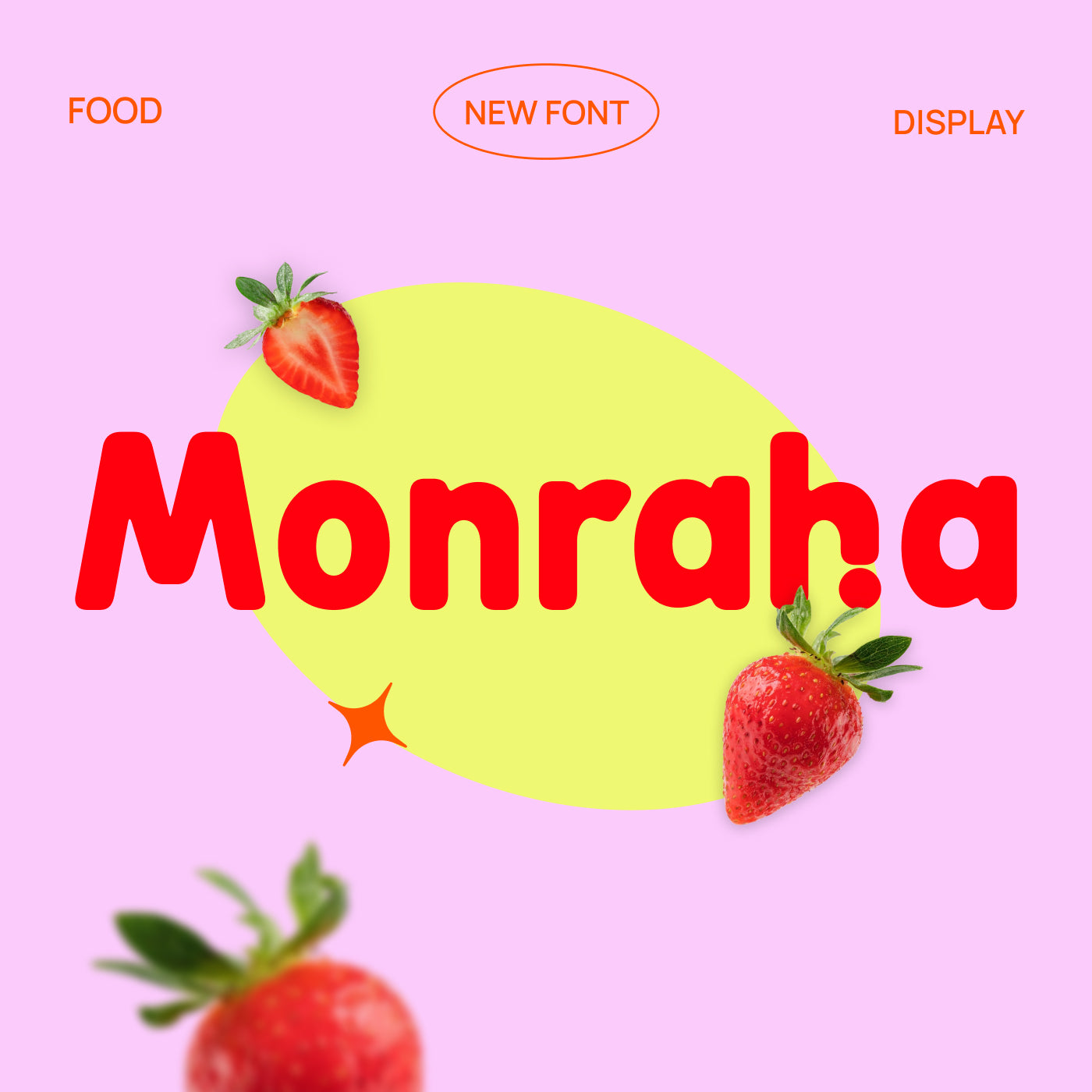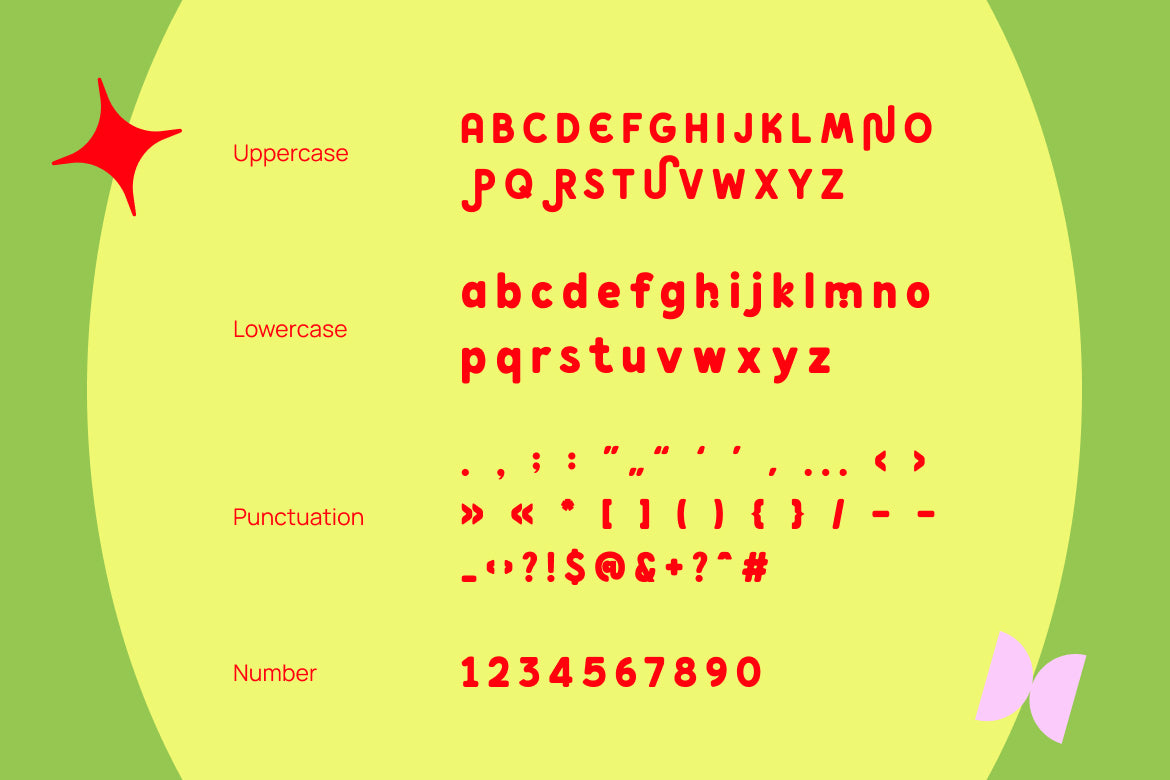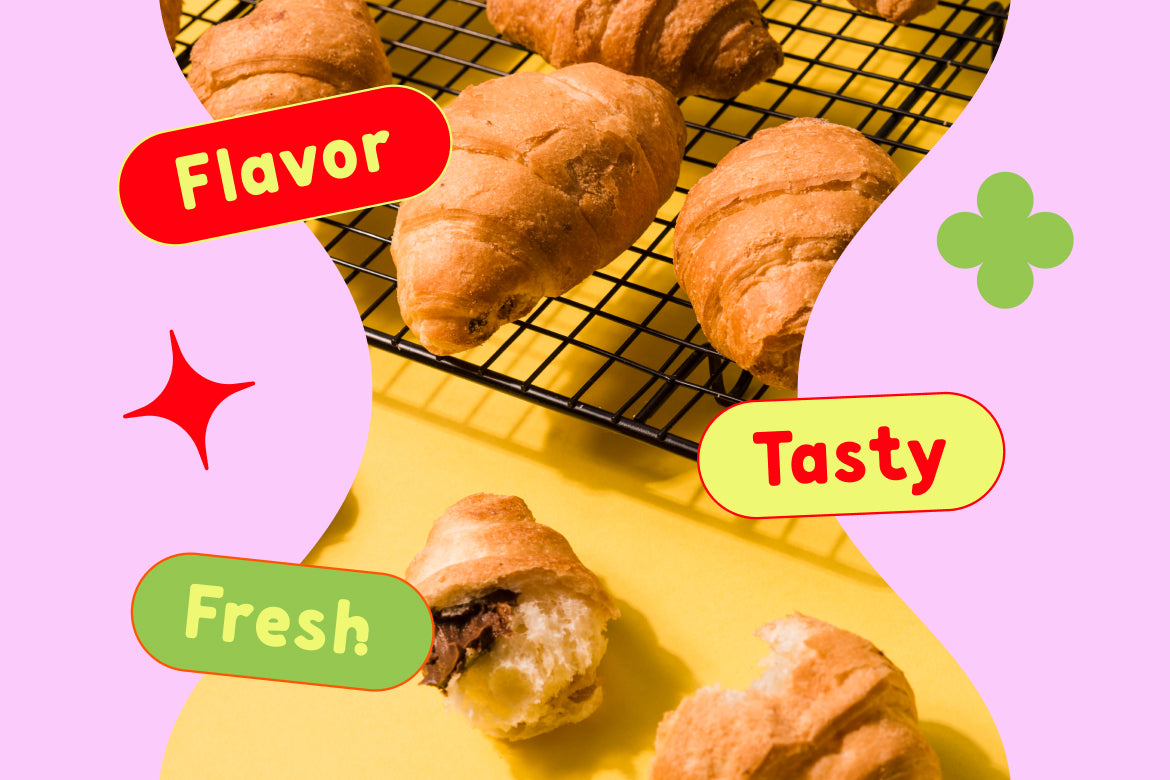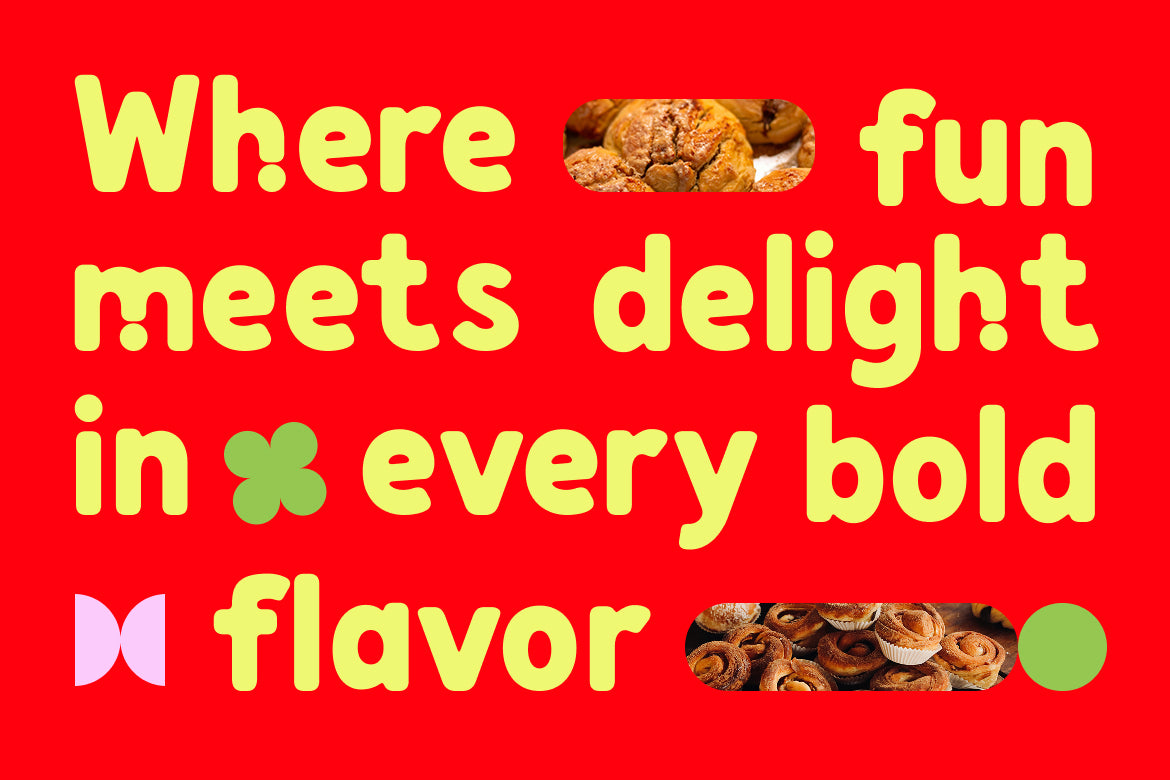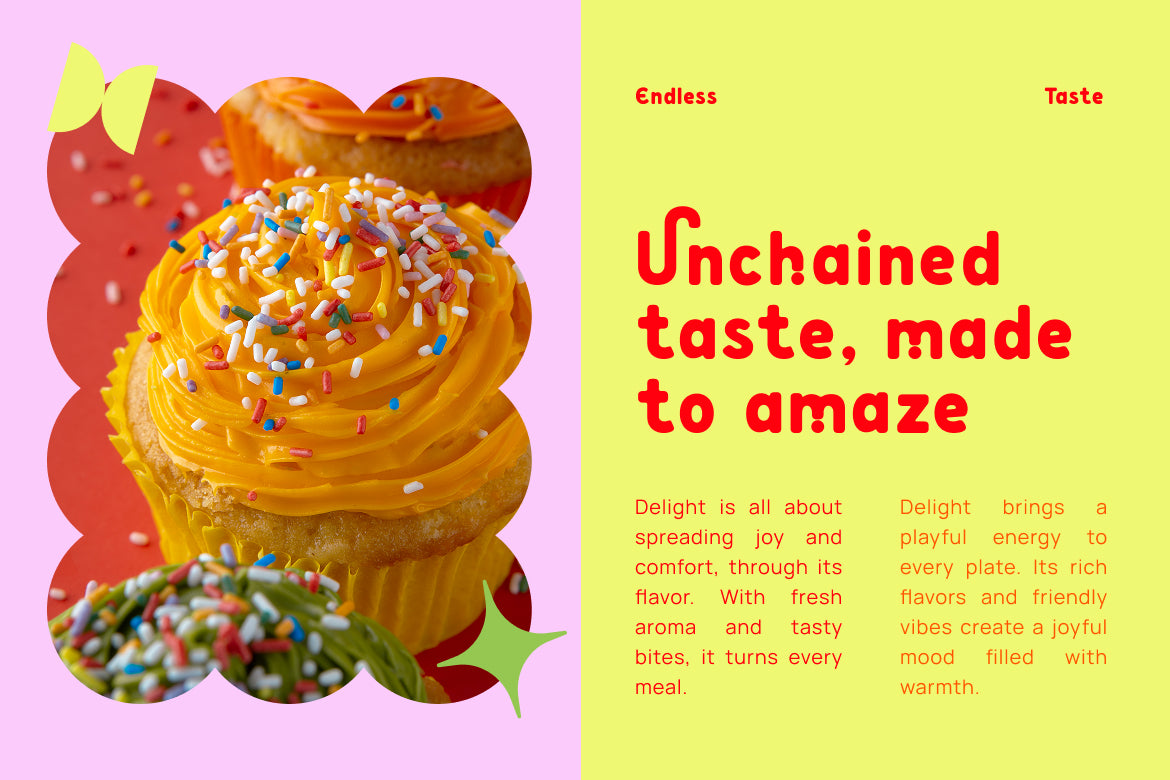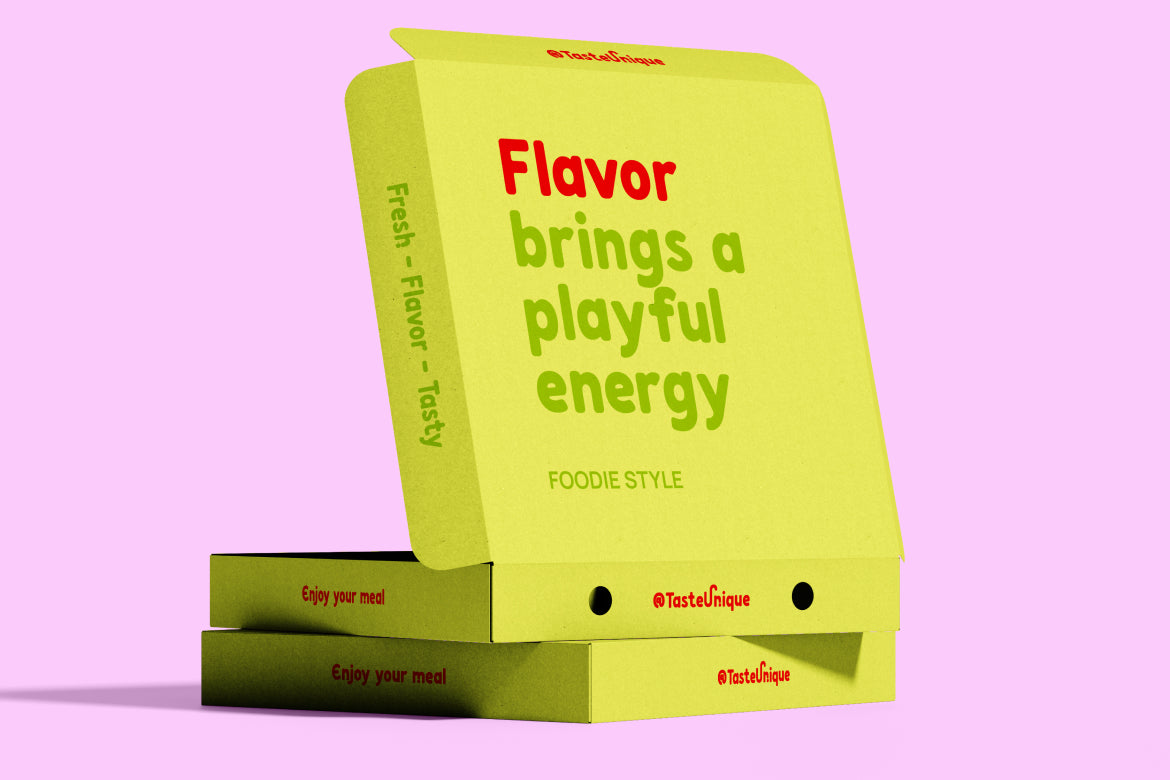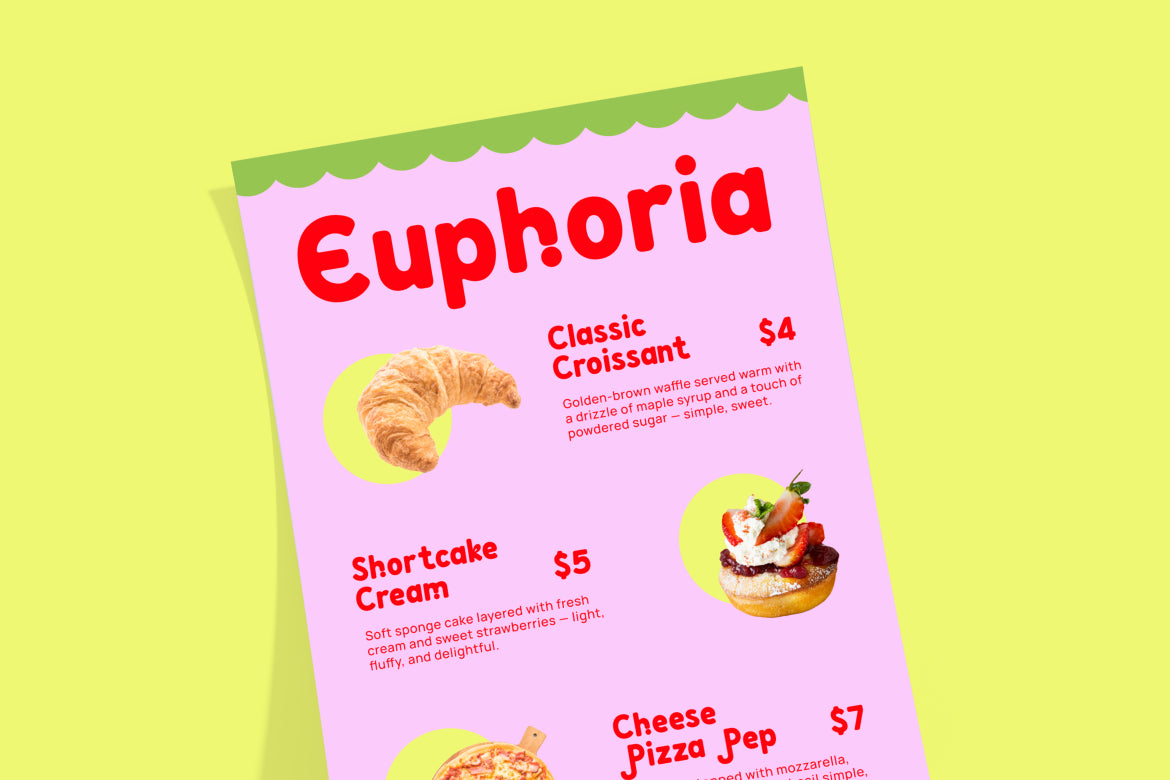
Monraha Food Display Font
Monraha Food Display Font is a playful sans-serif typeface designed to bring energy and fun to your designs. With its bold, rounded letterforms and lively character, Monraha is perfect for projects that require a cheerful and eye-catching touch. The font includes uppercase, lowercase letters, numerals, and punctuation, providing versatility for various applications. Ideal for food branding, packaging, event promotions, and creative marketing materials, Monraha adds a vibrant and friendly feel to any design.
Relevance and Use Cases is perfect for food packaging, branding, event promotions, social media graphics, product labels, and creative advertising campaigns that need a modern and energetic aesthetic.
Monraha is a bold, rounded sans-serif display font that includes uppercase and lowercase letters, numerals, and punctuation. It is available in TTF, OTF, and WOFF formats.